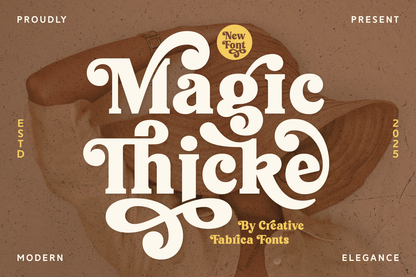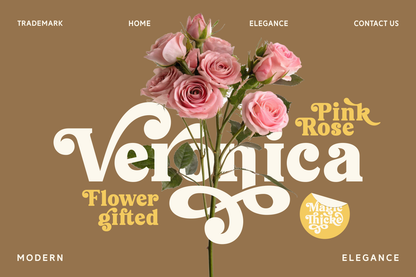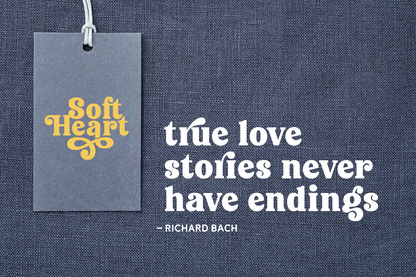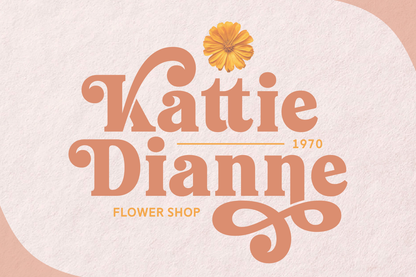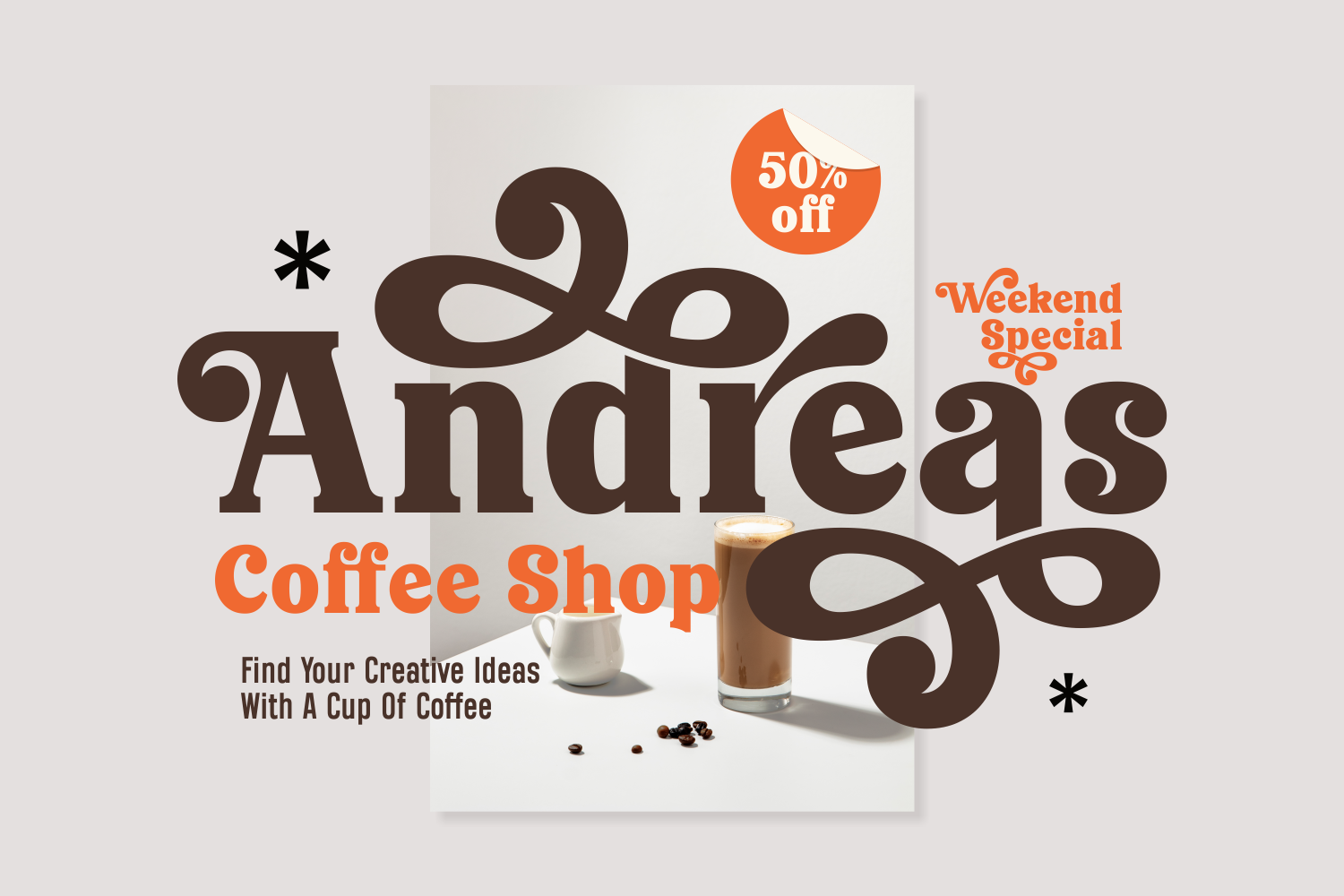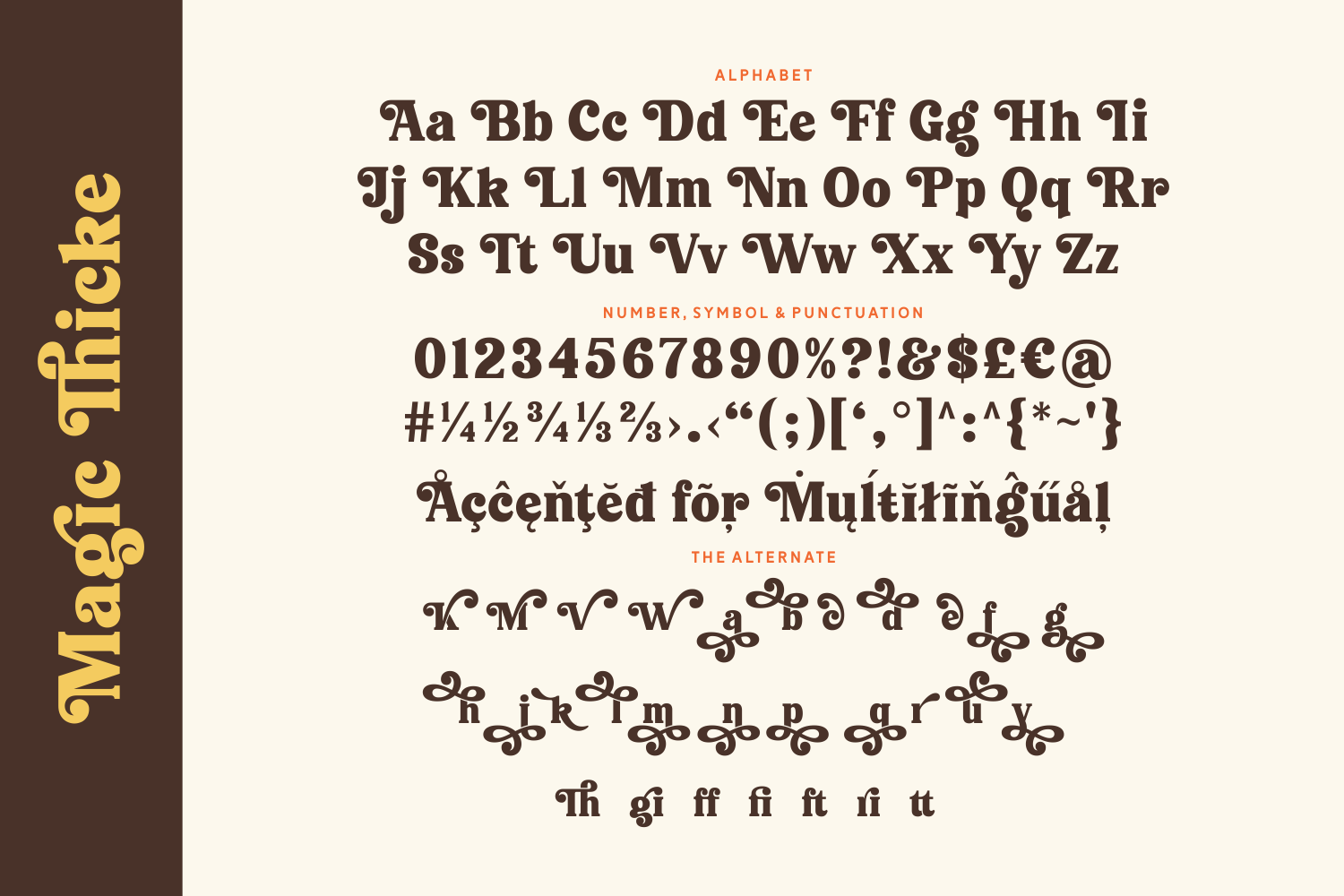
Magic Thicke is a bold, whimsical serif font full of charm and personality. Its thick strokes and curled flourishes make it ideal for creative branding, retro-style posters, and anything that needs playful sophistication.
Retro vibes meet magical flair.